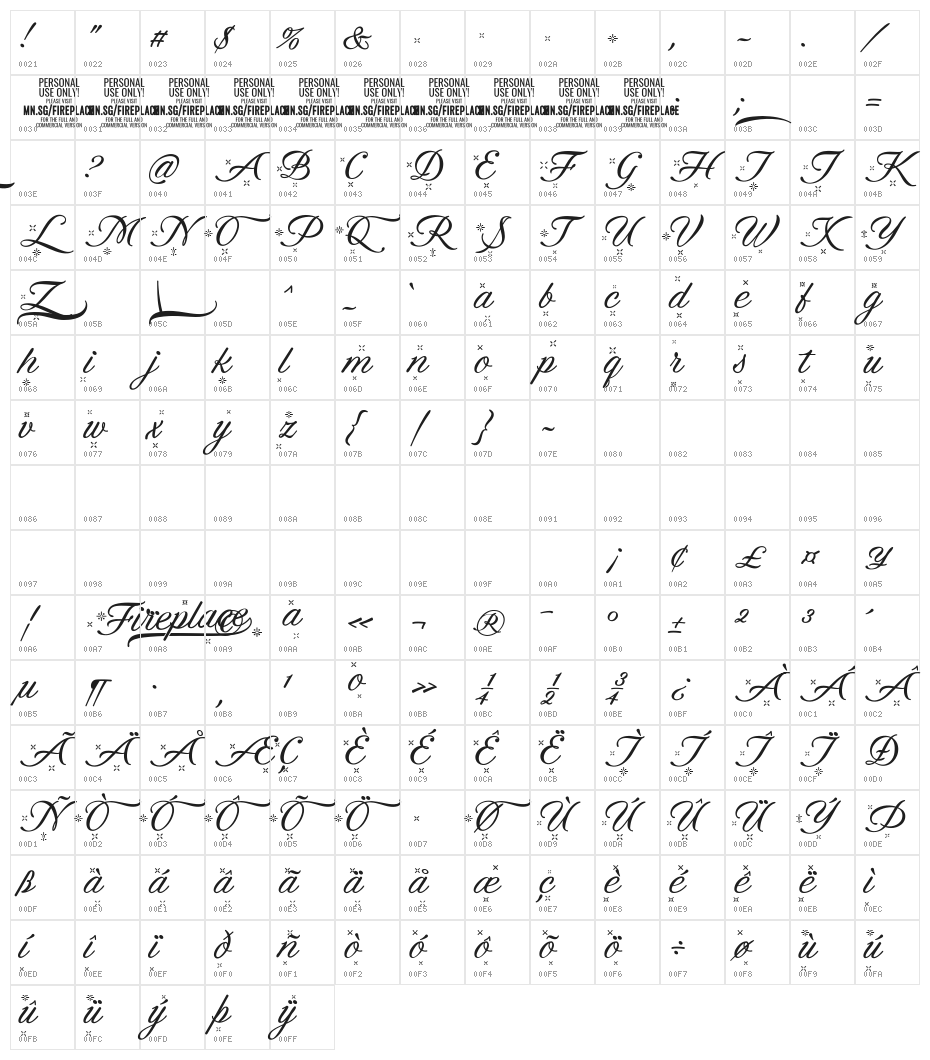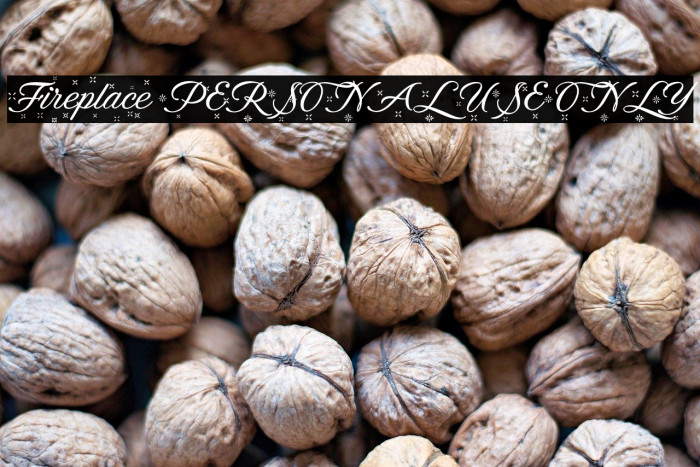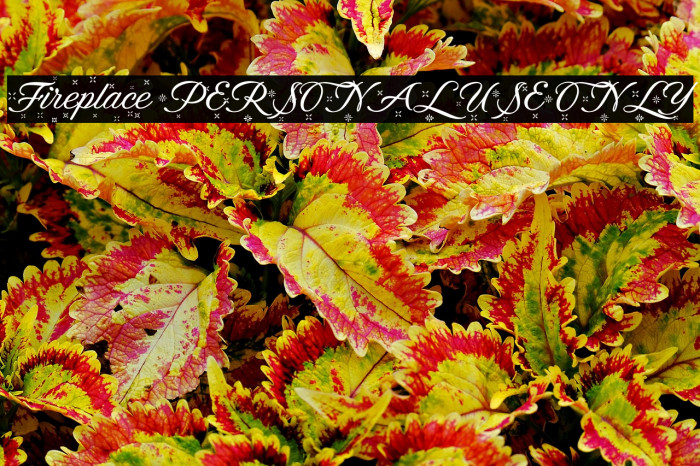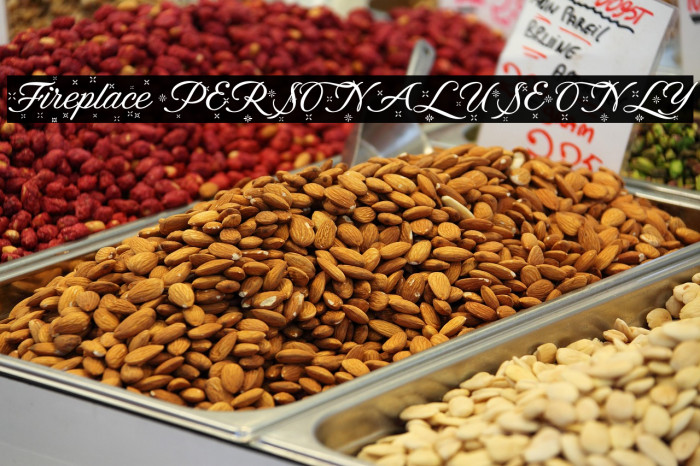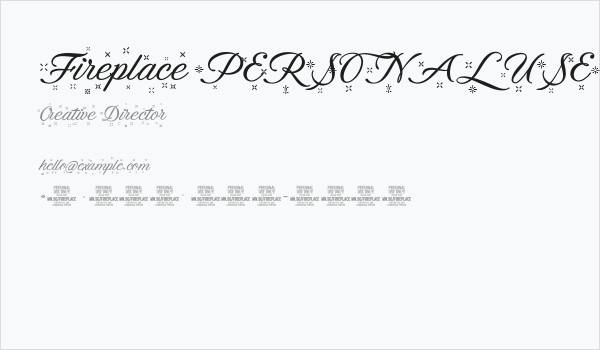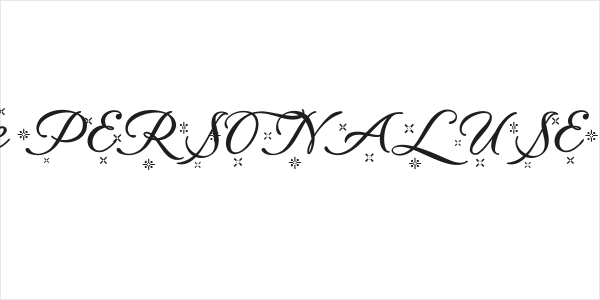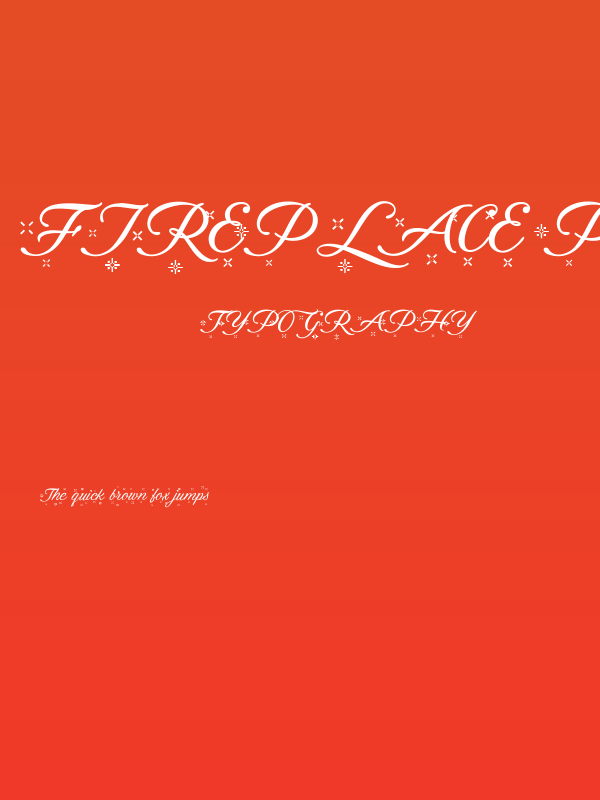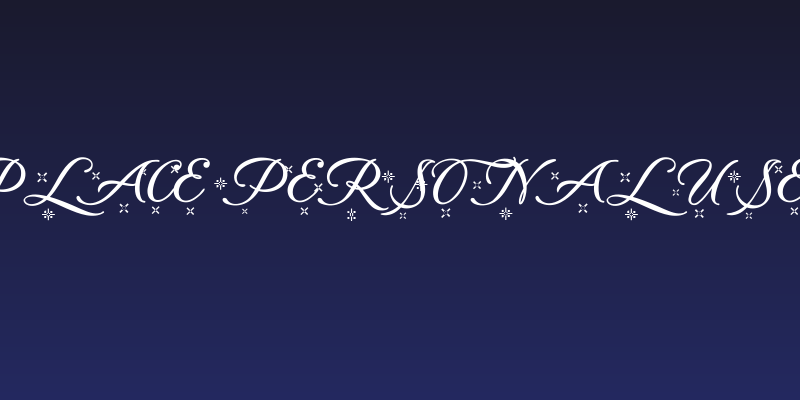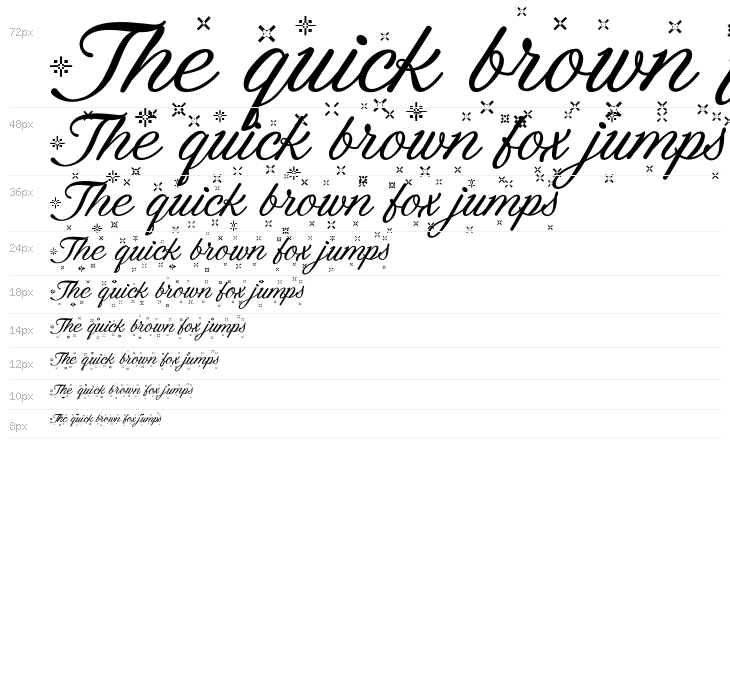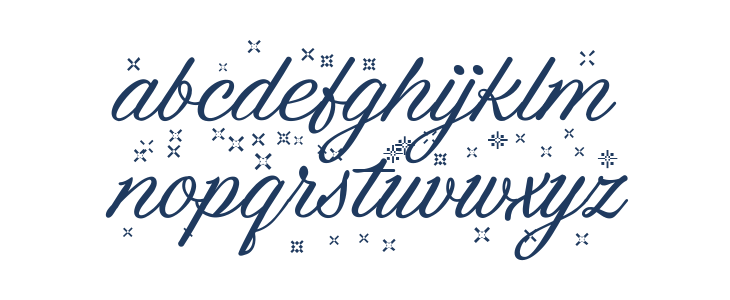
Fireplace PERSONAL USE ONLY Font
Fireplace PERSONAL USE ONLY Description
This elegant script font features a flowing, cursive style with ornate flourishes and decorative elements. The uppercase letters are adorned with intricate swashes, adding a touch of sophistication and charm. The lowercase letters maintain a smooth, connected flow, enhancing readability while retaining an artistic flair. The numerals and special characters are designed with similar attention to detail, ensuring a cohesive look throughout. This font is perfect for creating a luxurious and refined aesthetic, suitable for formal invitations, branding, and decorative projects.
| Proposed Projects | Ideal for wedding invitations, luxury branding, greeting cards, and decorative signage. |